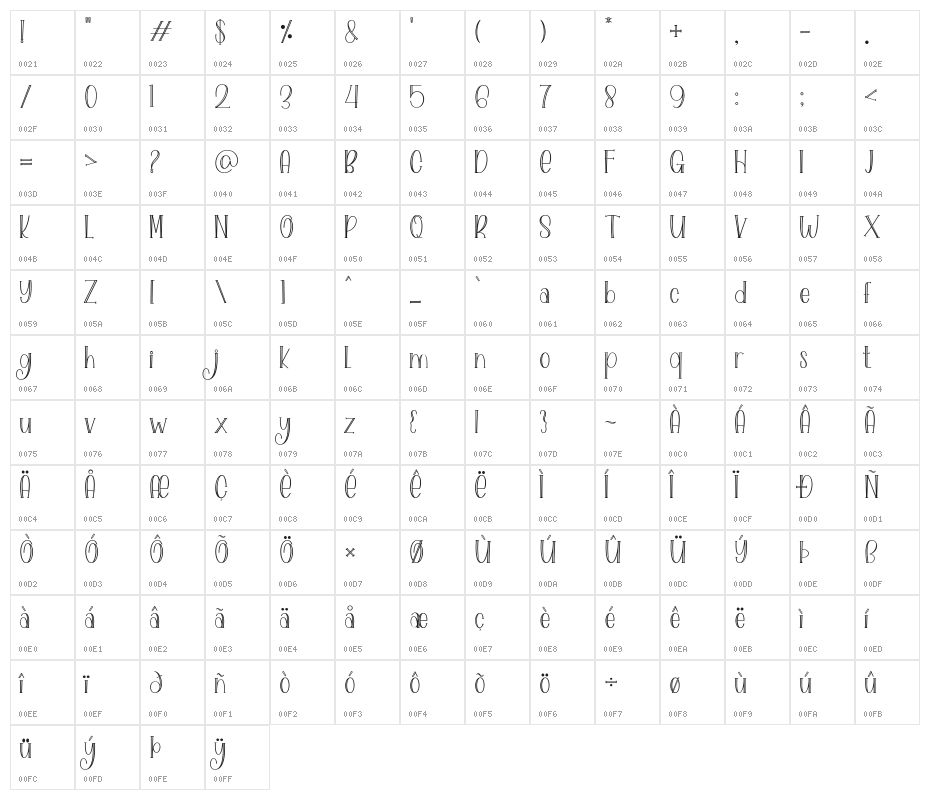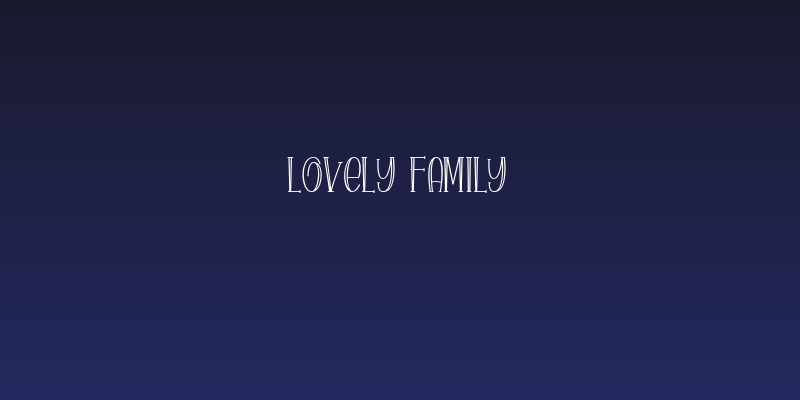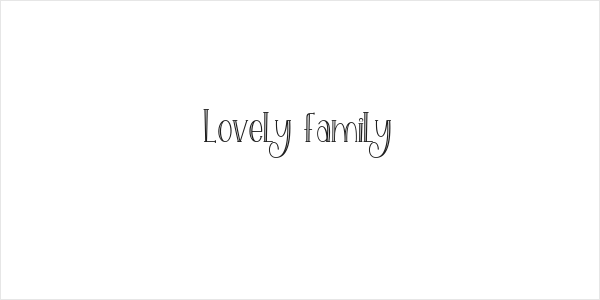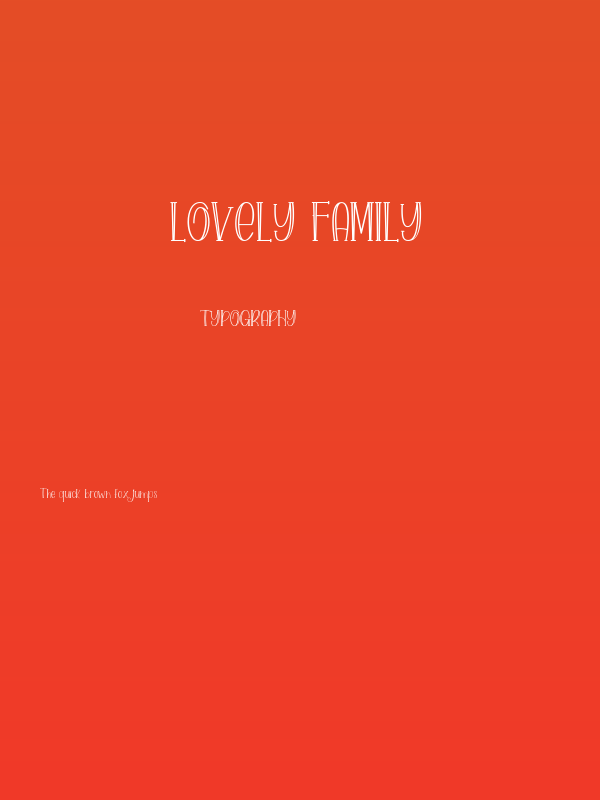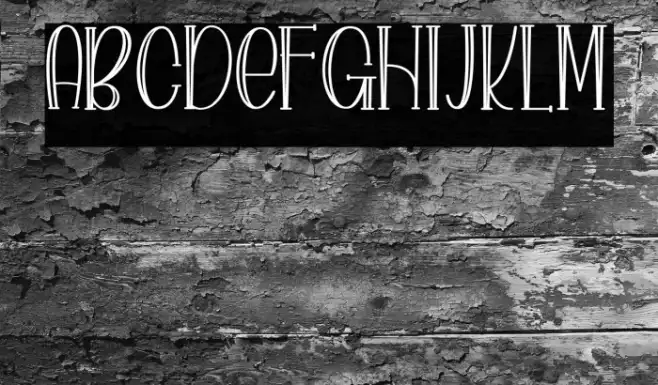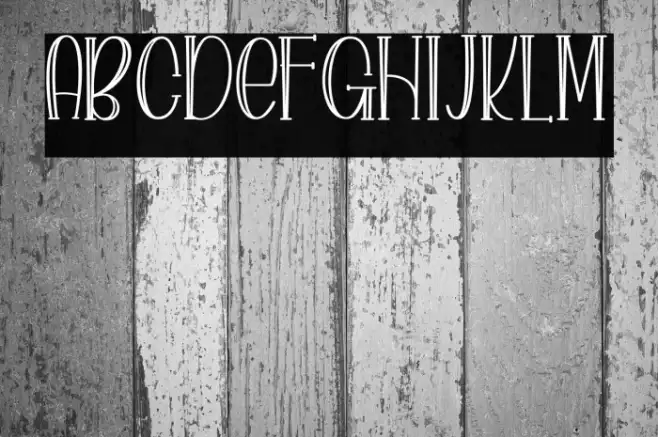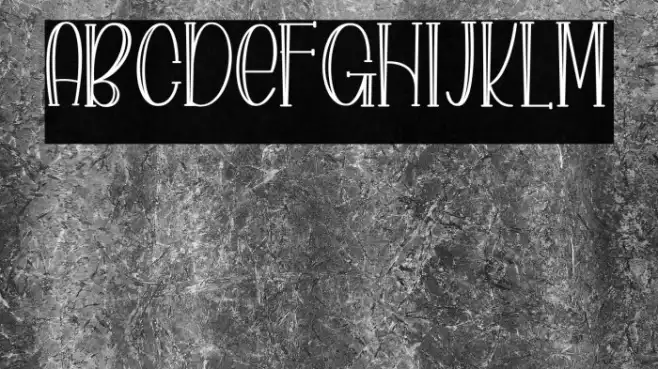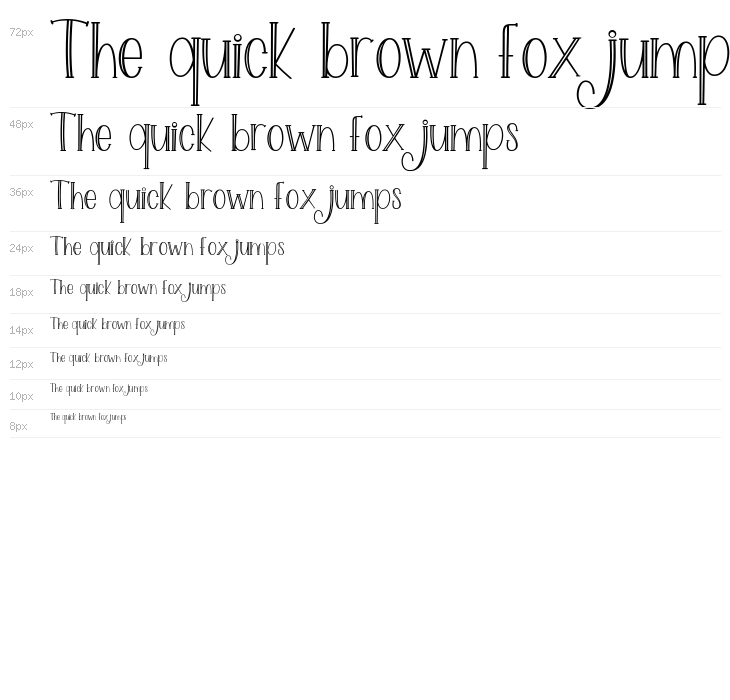
Lovely family Font
Lovely family Description
This font features a unique and playful design with elongated and narrow letterforms. The characters have a whimsical and decorative flair, with some letters incorporating subtle curls and loops. The uppercase letters are tall and slender, while the lowercase letters maintain a consistent style with slight variations in height. The numbers are similarly styled, providing a cohesive look across all characters. The special characters are creatively integrated, maintaining the overall aesthetic. This font is ideal for projects that require a touch of elegance and creativity, making it suitable for invitations, greeting cards, and playful branding.
| Proposed Projects | Ideal for invitations, greeting cards, playful branding, and decorative headings. |